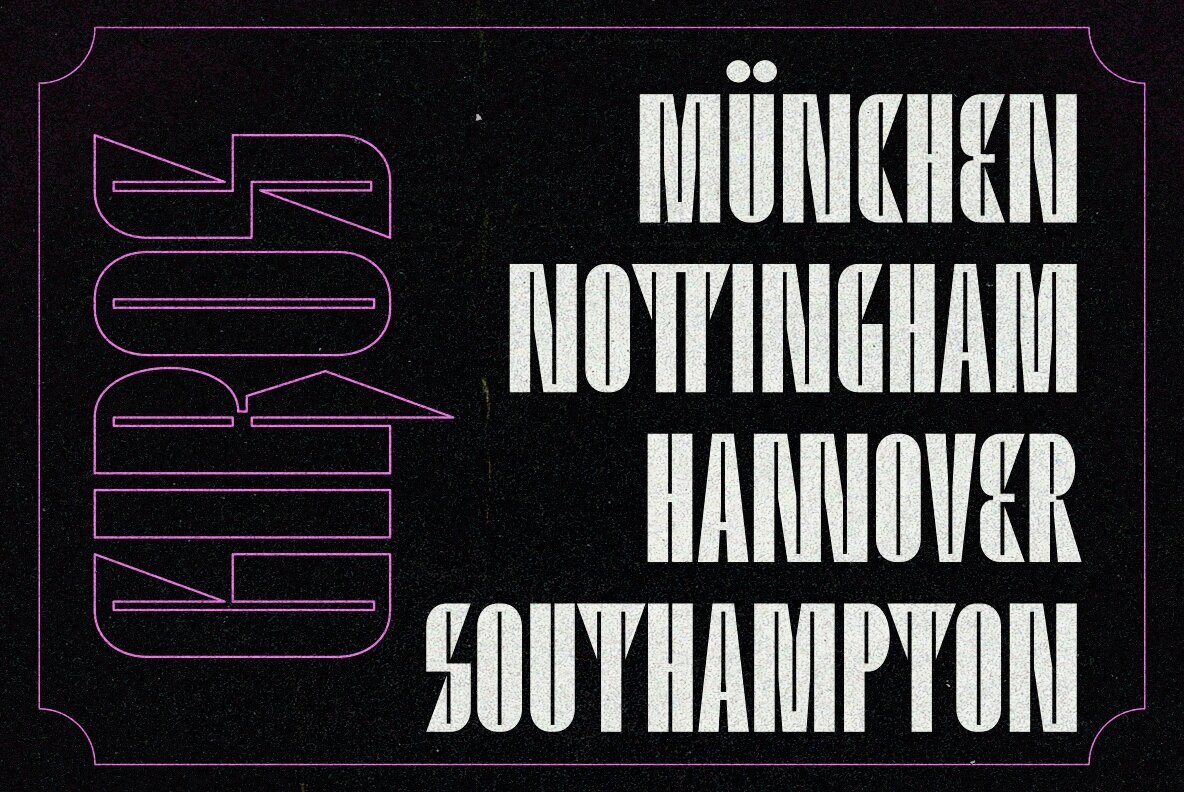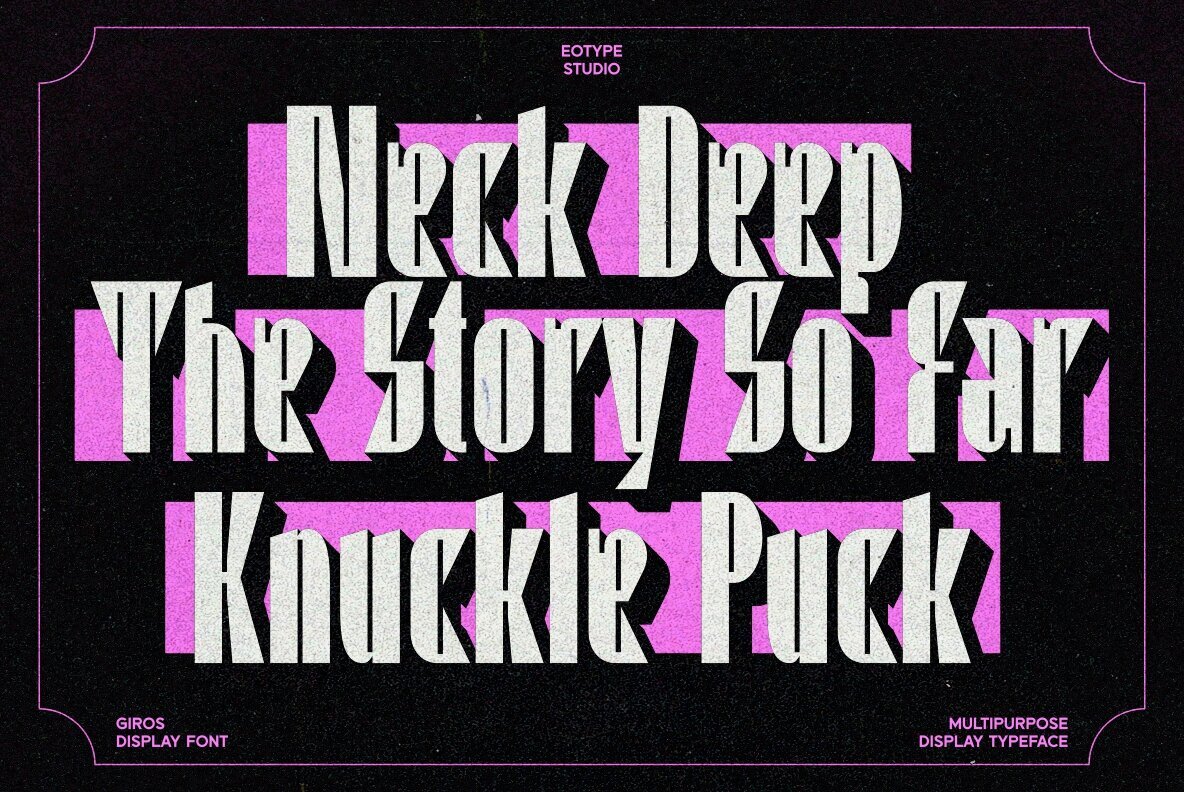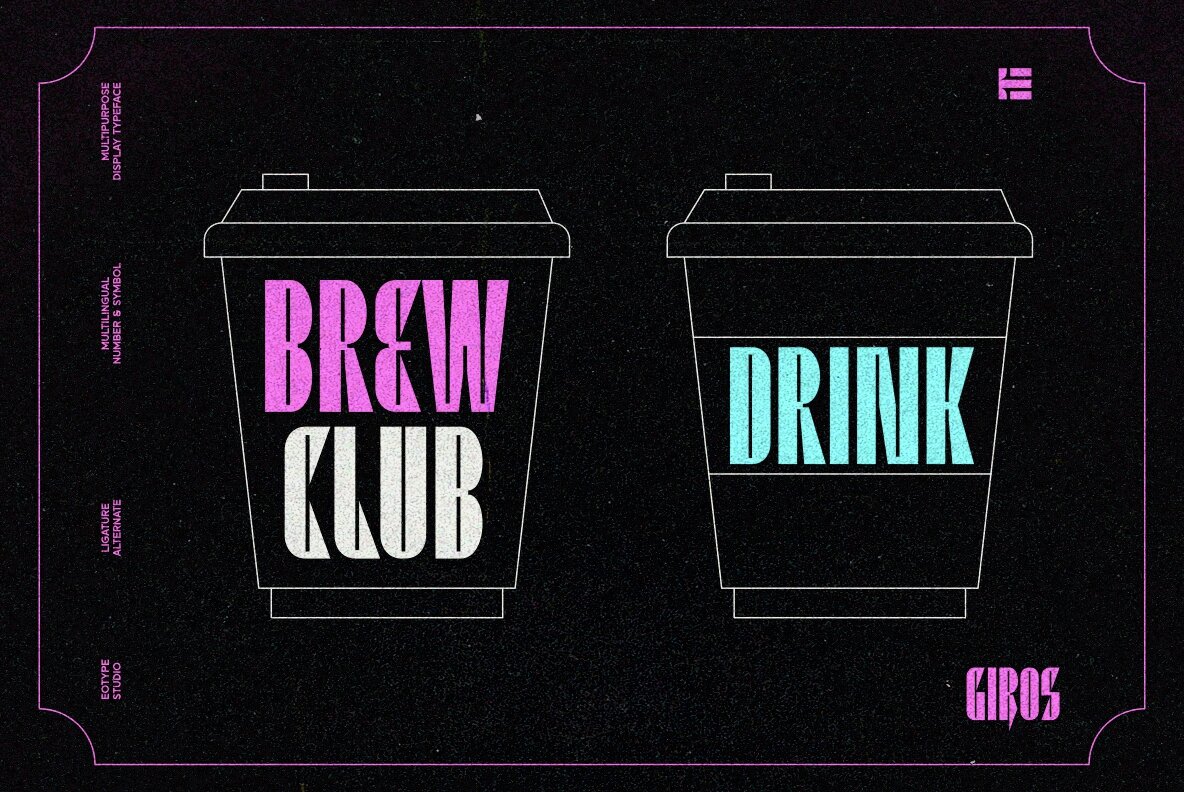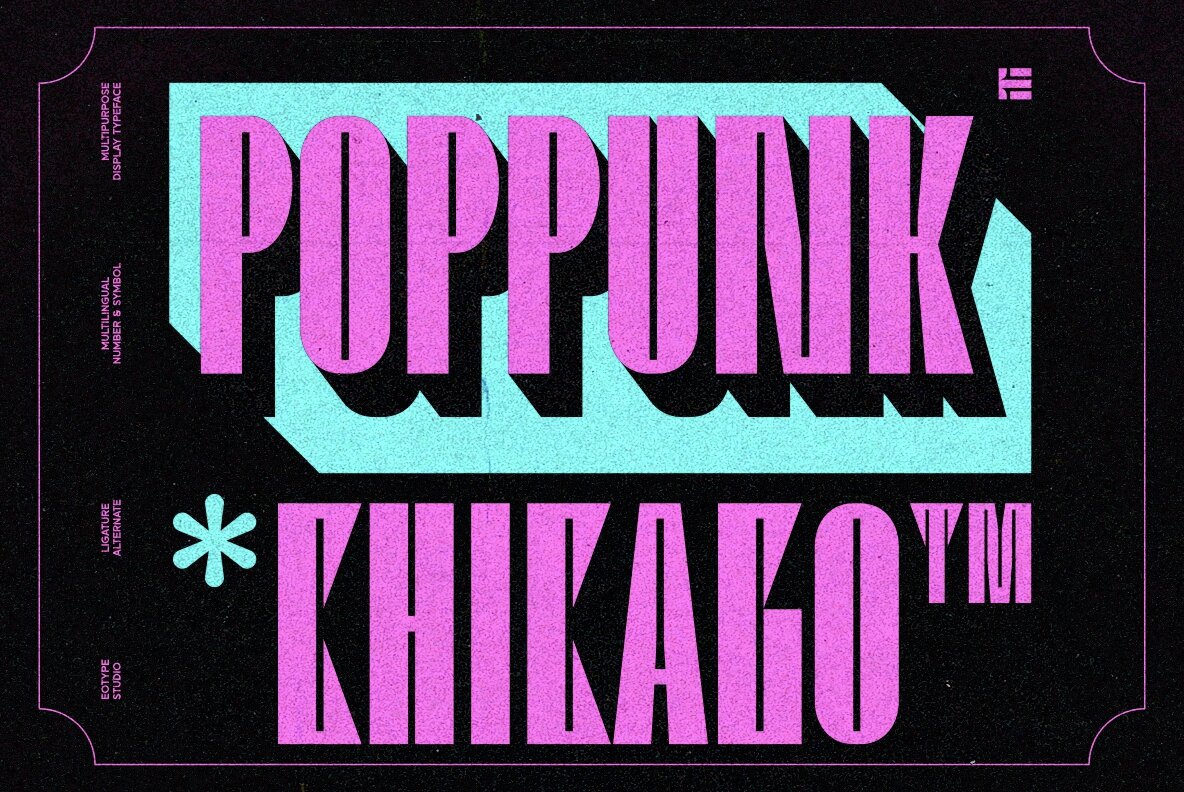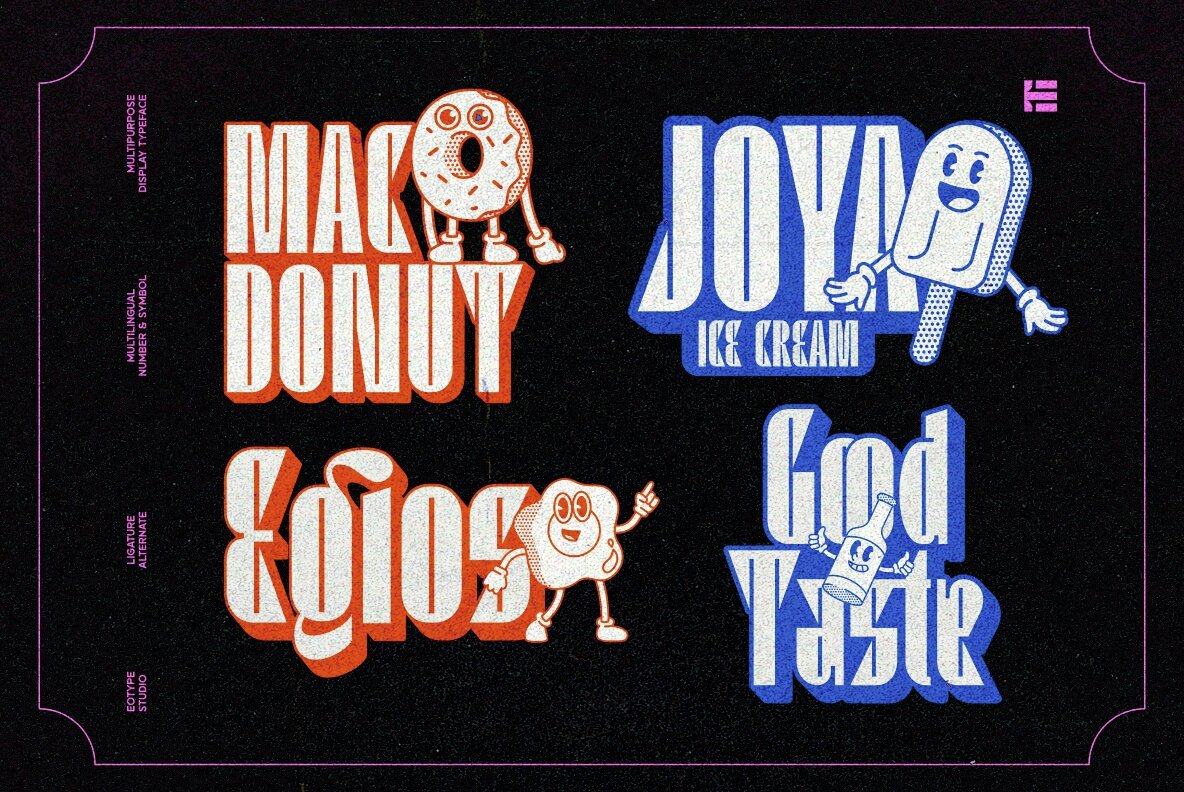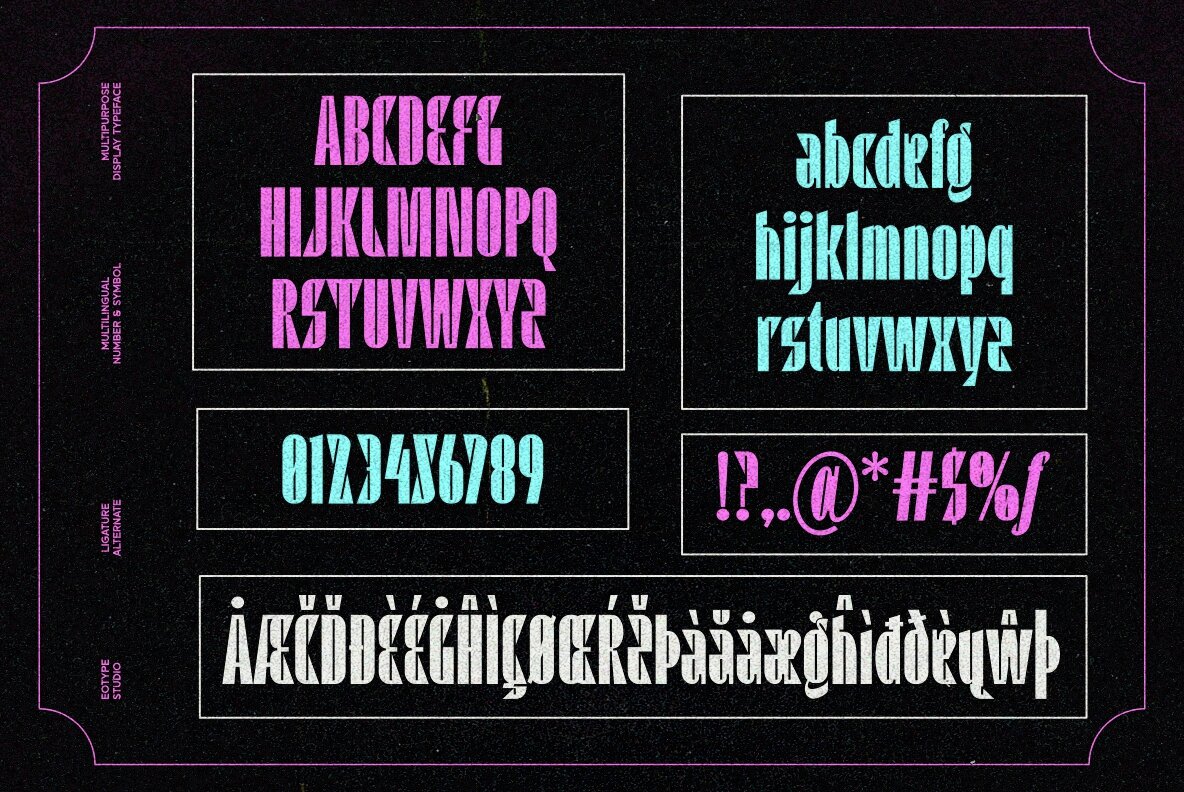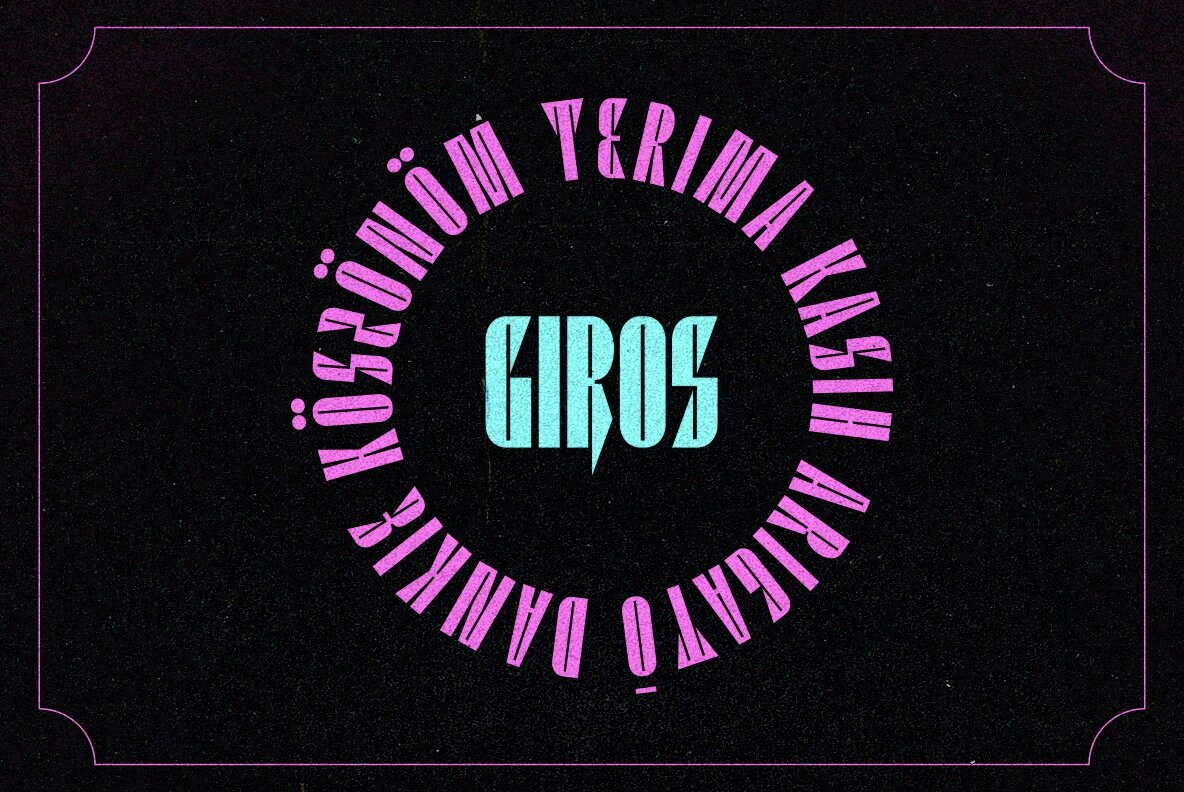
Giros Font
Giros is a font that masterfully combines geometric precision with a touch of humanistic imperfection. Its clean and uniform structure provides functionality and simplicity, making it a versatile choice for designers seeking a timeless look. The subtle nuances in its design add character, allowing for creative expression across various design projects.
This font's unique charm lies in its ability to be both classic and distinctive. Its balanced simplicity ensures it stands out without overwhelming the design, making it suitable for everything from branding to editorial layouts. Giros offers designers the flexibility to infuse their work with a touch of personality while maintaining a professional aesthetic.